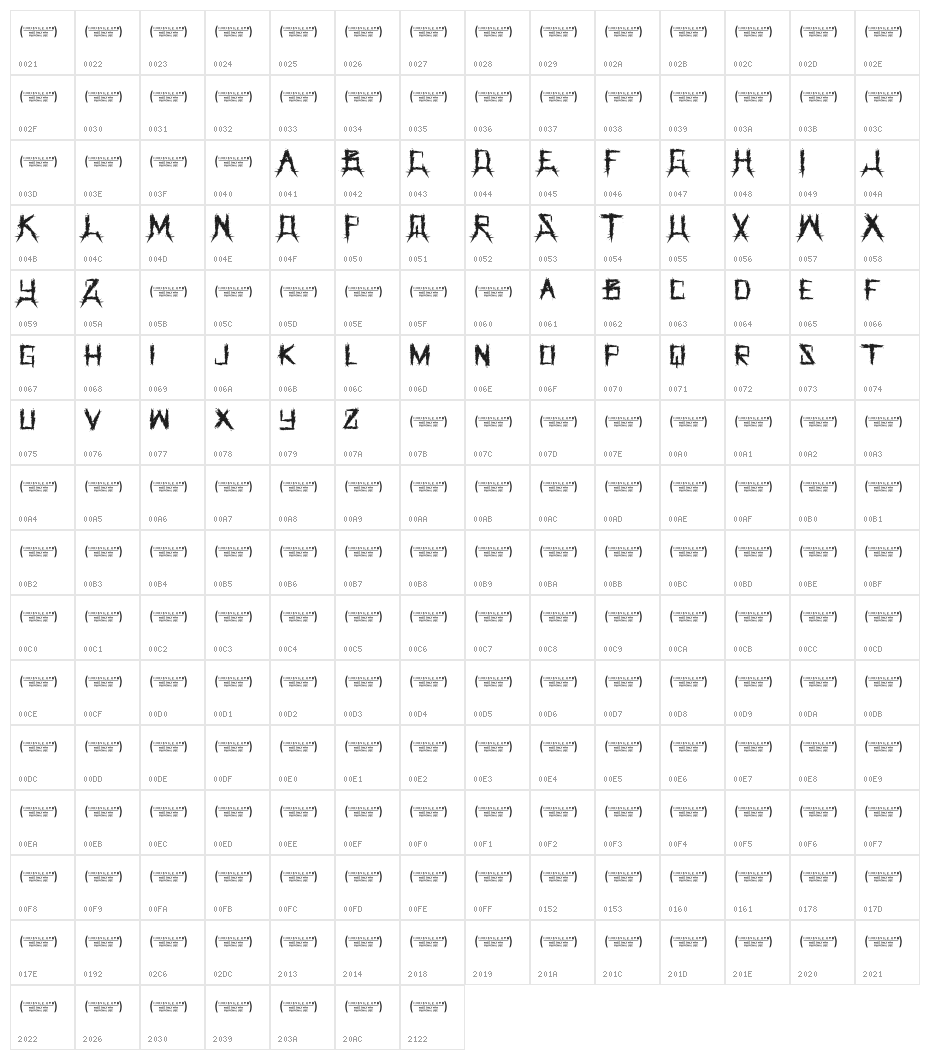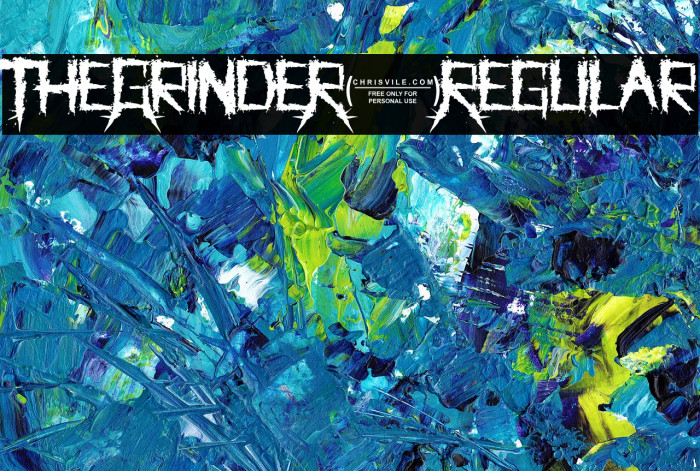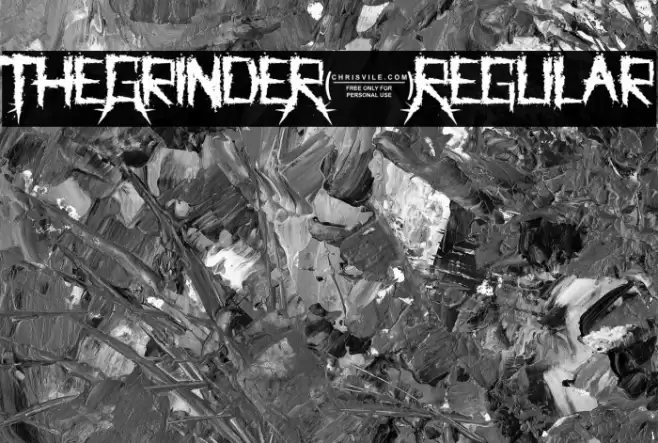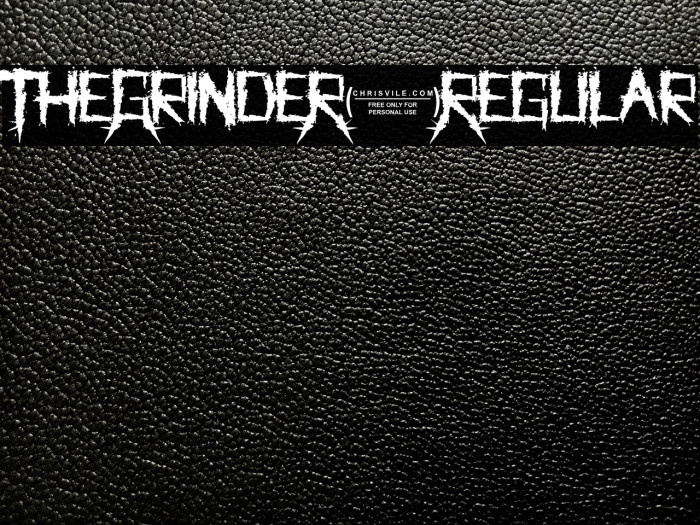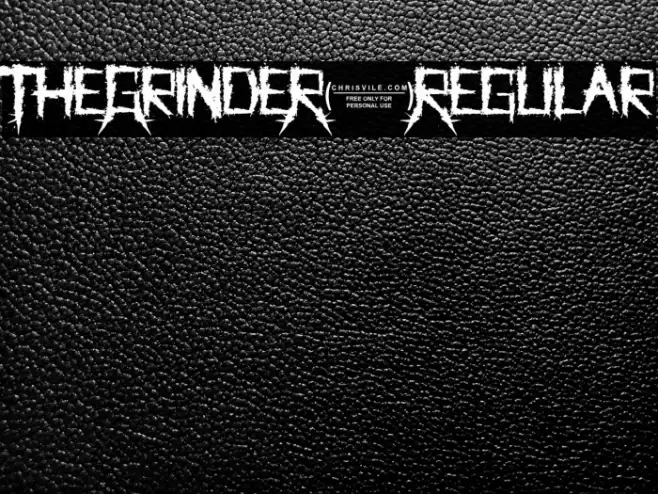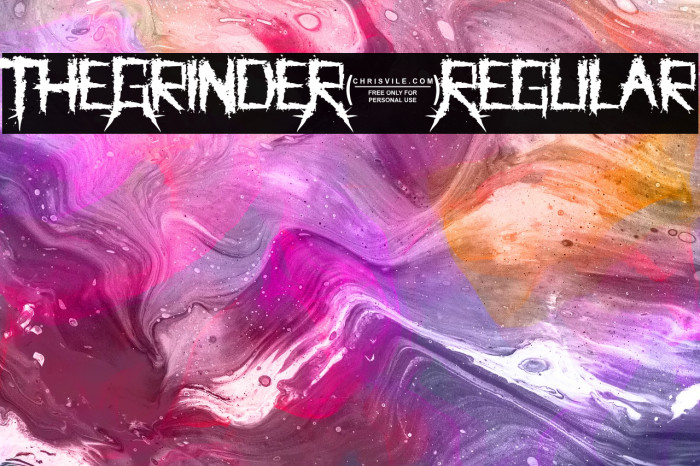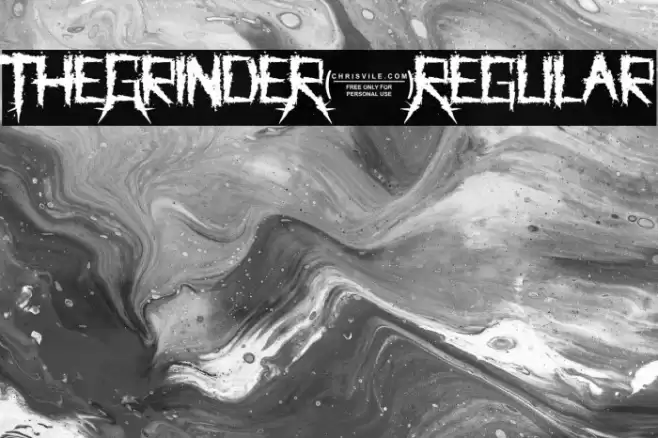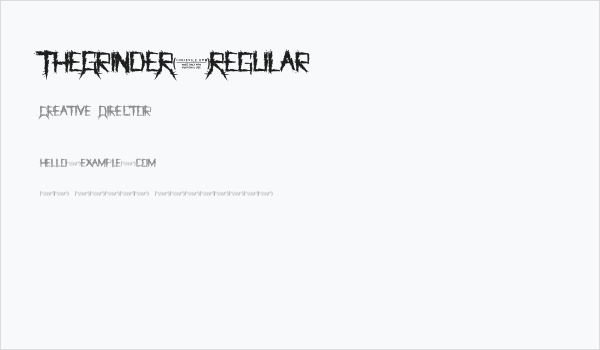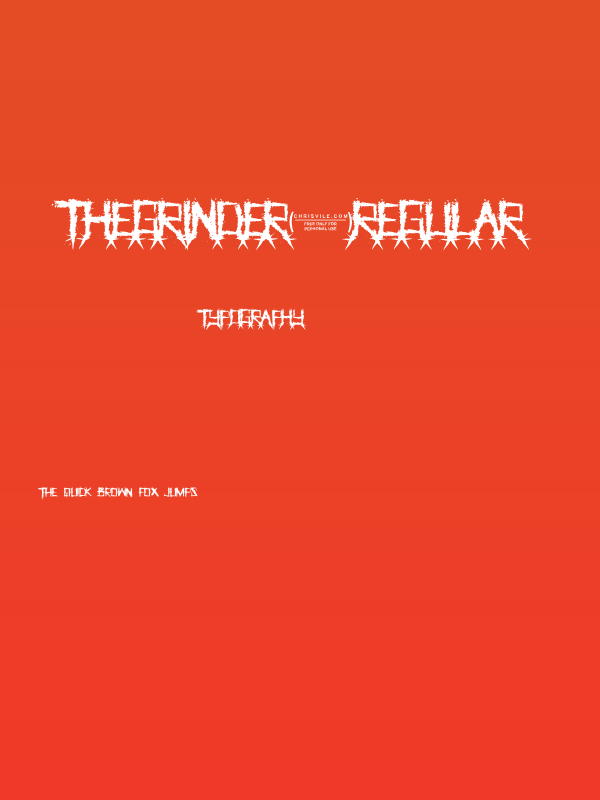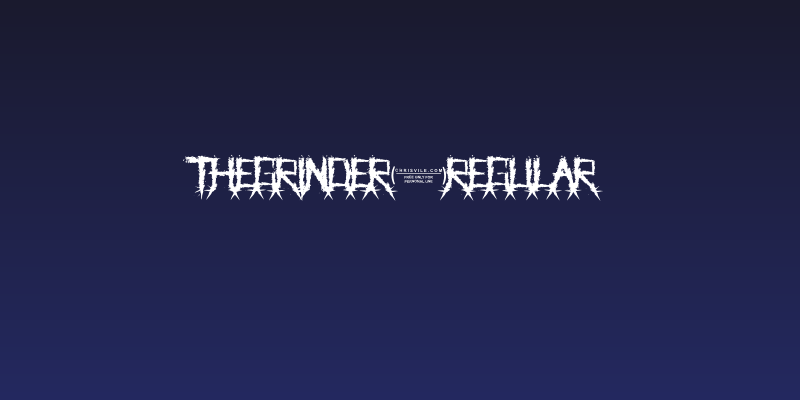
TheGrindeR-Regular Font
TheGrindeR-Regular Description
This font features a bold and aggressive design with sharp, jagged edges that give it a rugged, distressed appearance. The characters are heavily stylized, resembling a combination of graffiti and metal band logos, making it stand out with its unique and edgy aesthetic. The uppercase letters are particularly striking, with exaggerated angles and a rough texture that suggests a sense of chaos and intensity. This font is perfect for projects that require a strong visual impact and a rebellious or alternative vibe.
| Overall Style | Decorative, Edgy |
| Proposed Projects | Ideal for music album covers, event posters, extreme sports branding, and any project needing a bold, rebellious look. |